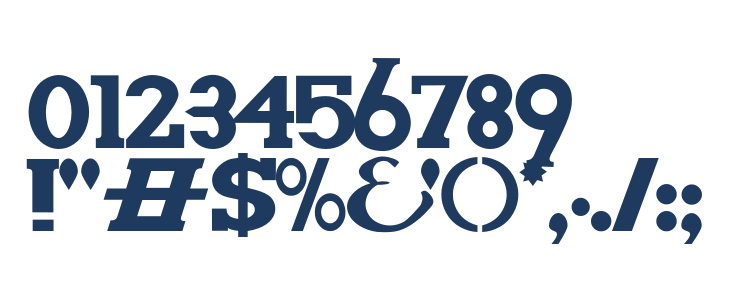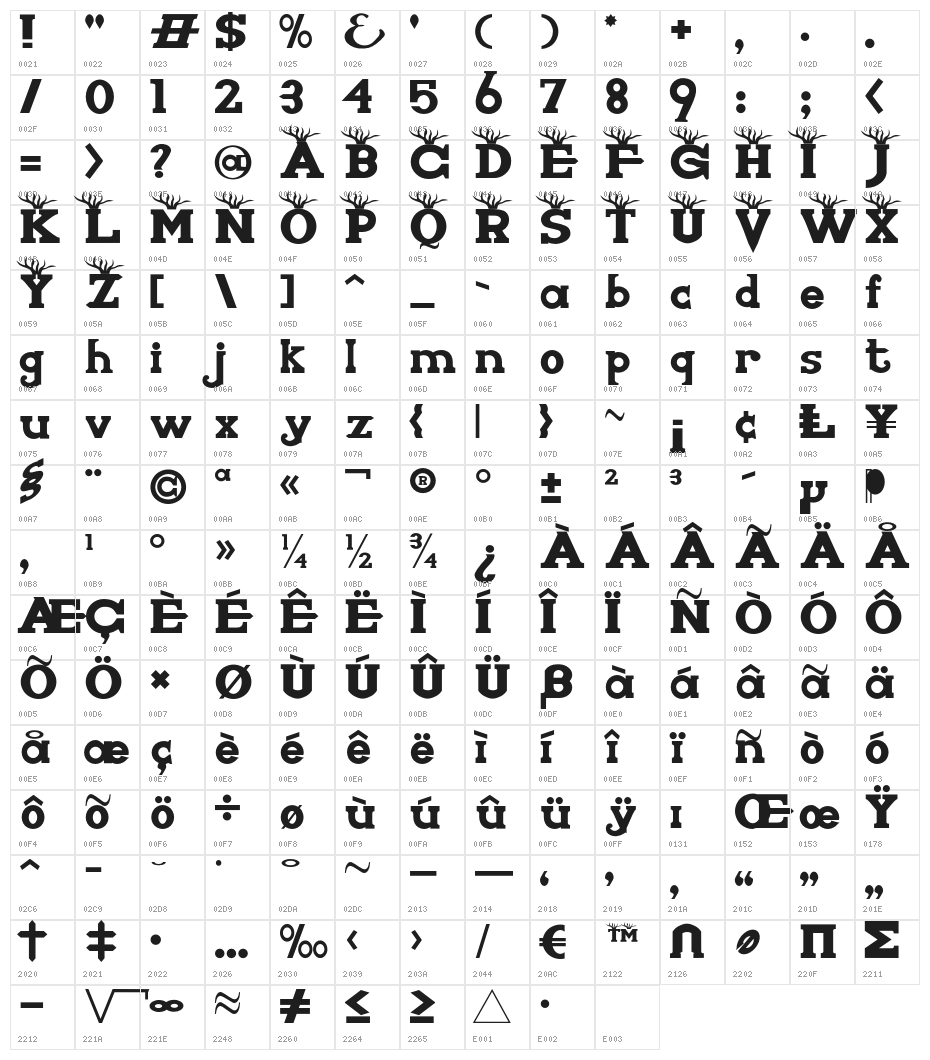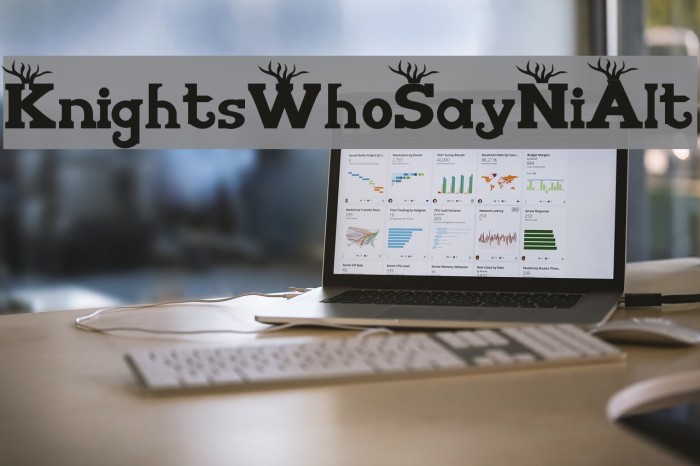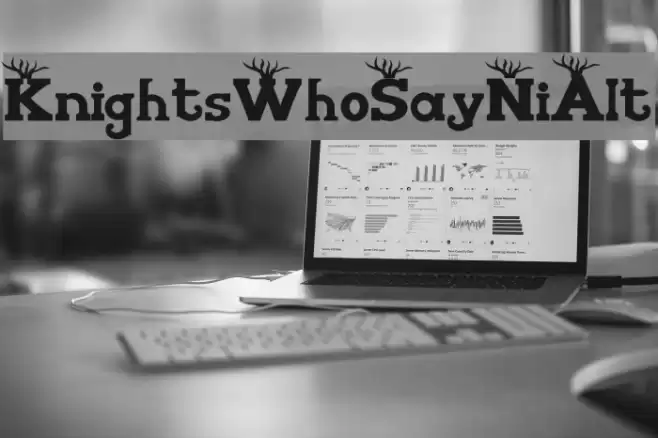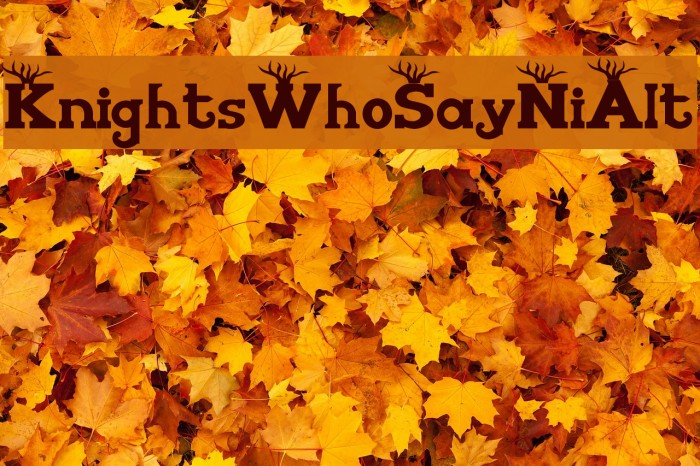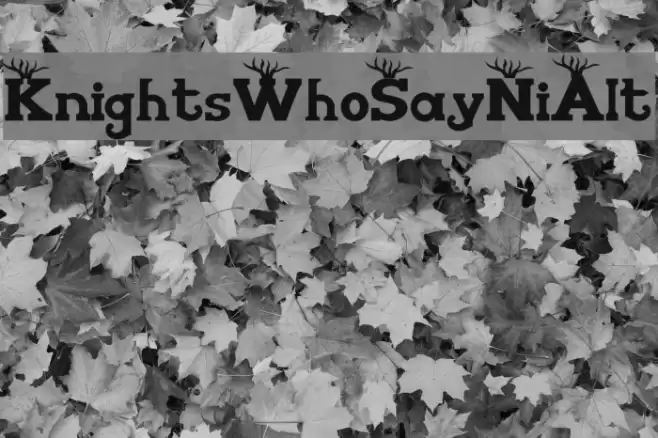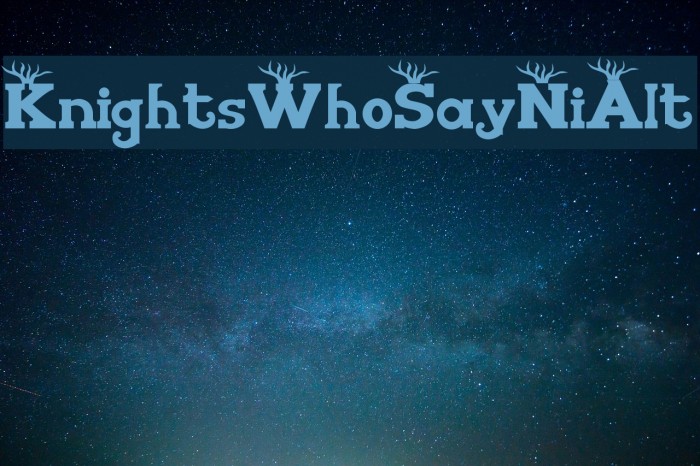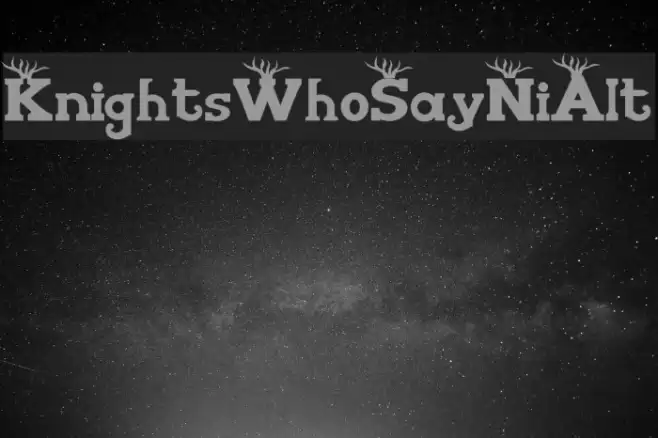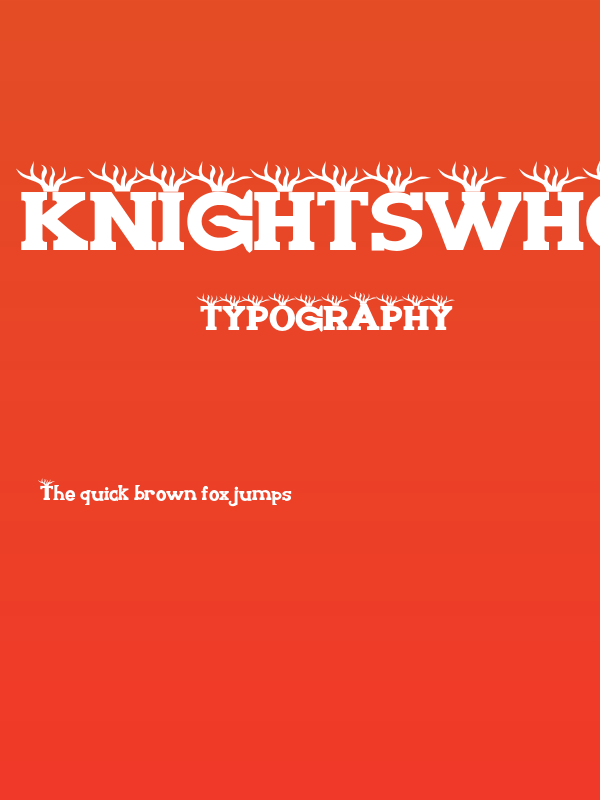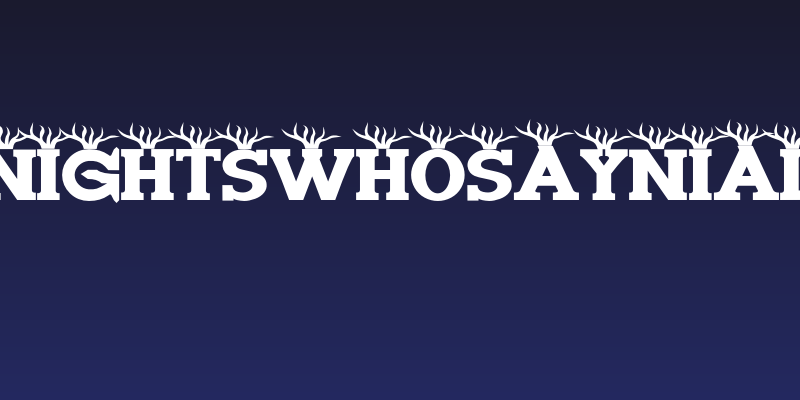
KnightsWhoSayNiAlt Font
KnightsWhoSayNiAlt Description
This font features a unique and playful design with antler-like embellishments on the uppercase letters, giving it a whimsical and decorative appearance. The lowercase letters maintain a bold and rounded style, providing a strong visual impact. The numbers and special characters are consistent with the bold and decorative theme, making them stand out. This font is ideal for projects that require a touch of fantasy or medieval flair, such as themed event posters or playful branding.
| Proposed Projects | Ideal for themed event posters, playful branding, fantasy book covers, and creative invitations. |